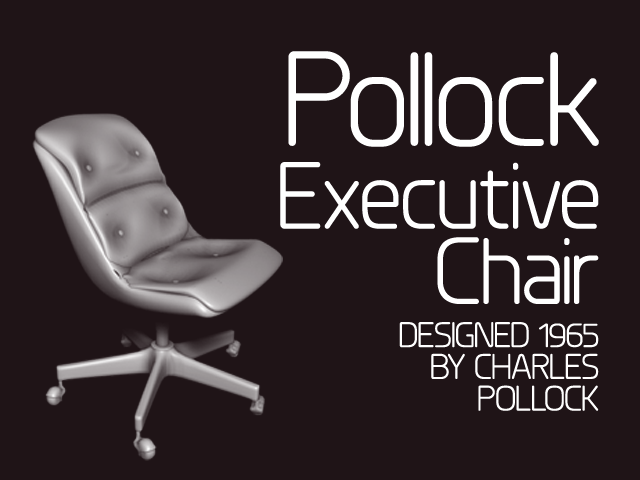
Font name: | Planer |
Author: | The Northern Block |
Note by The Northern Block | |
A modern rounded typeface combining humanist elements with a strong geometric grid. The result is a font that can produce striking visuals at large scale and clean line legibility at text size. Details include a complete character set, manually edited kerning and Euro symbol. |